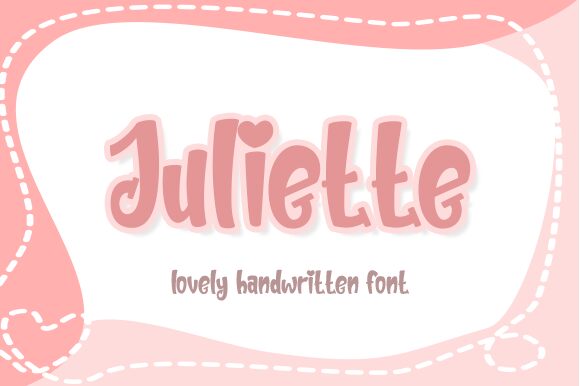
Juliette
Juliette is a playful and bold display font designed by Nirmala Creative. With its semi-condensed width and cartoon style, it's perfect for creating eye-catching headlines, posters, and logos that demand attention. The Juliette font adds a touch of whimsy to any design project, making it suitable for children's book covers or promotional materials for fun events like carnivals or fairs. Its bold weight ensures legibility at larger sizes while still maintaining its playful charm. Bring your designs to life with the Juliette font - the perfect choice for anyone looking to add a touch of fun and creativity to their work!